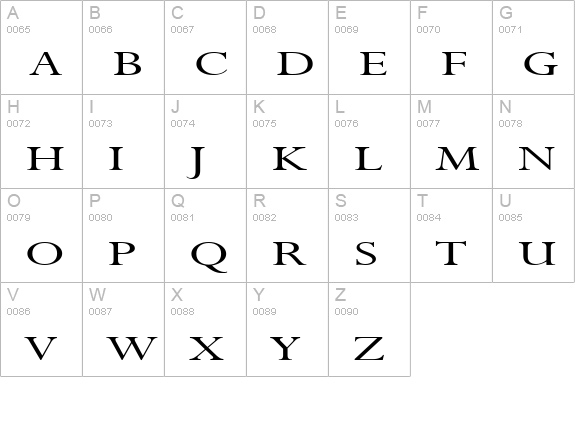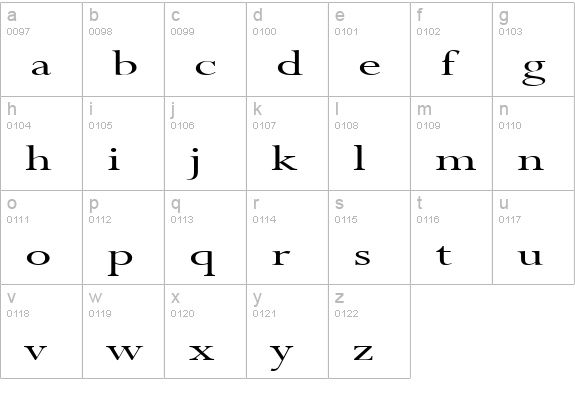
Rapid Extended Normal is the standard, neutral, extended-width variant in the Rapid typeface family \xE2\x80\x94 well suited to general body text, paragraphs, and standard typographic work.
Introducing Rapid Extended Normal, a sleek and sophisticated font that effortlessly combines modern elegance with timeless appeal. This remarkable typeface is the perfect choice for any project that requires a touch of refined professionalism. With its clean lines and well-balanced letters, Rapid Extended Normal exudes confidence and sophistication, making it ideal for branding, editorial design, advertising, and more. What sets Rapid Extended Normal apart is not only its impeccable design but also its versatility. Whether you're working on a corporate logo, a magazine spread, or a website, this font will seamlessly adapt to any context, creating a harmonious and visually stunning result. But what truly makes Rapid Extended Normal a standout choice is the fact that it is completely free. Yes, you read that right! This amazing font is freely available to download at FontsMarket.com, ensuring that designers and creatives from all walks of life can access and utilize its remarkable features without any financial burden. With Rapid Extended Normal, you can confidently elevate your designs to new heights, all while enjoying the freedom and flexibility that comes with a high-quality font that won't break the bank. So why wait? Unlock your creative potential and download Rapid Extended Normal today, exclusively at FontsMarket.com.